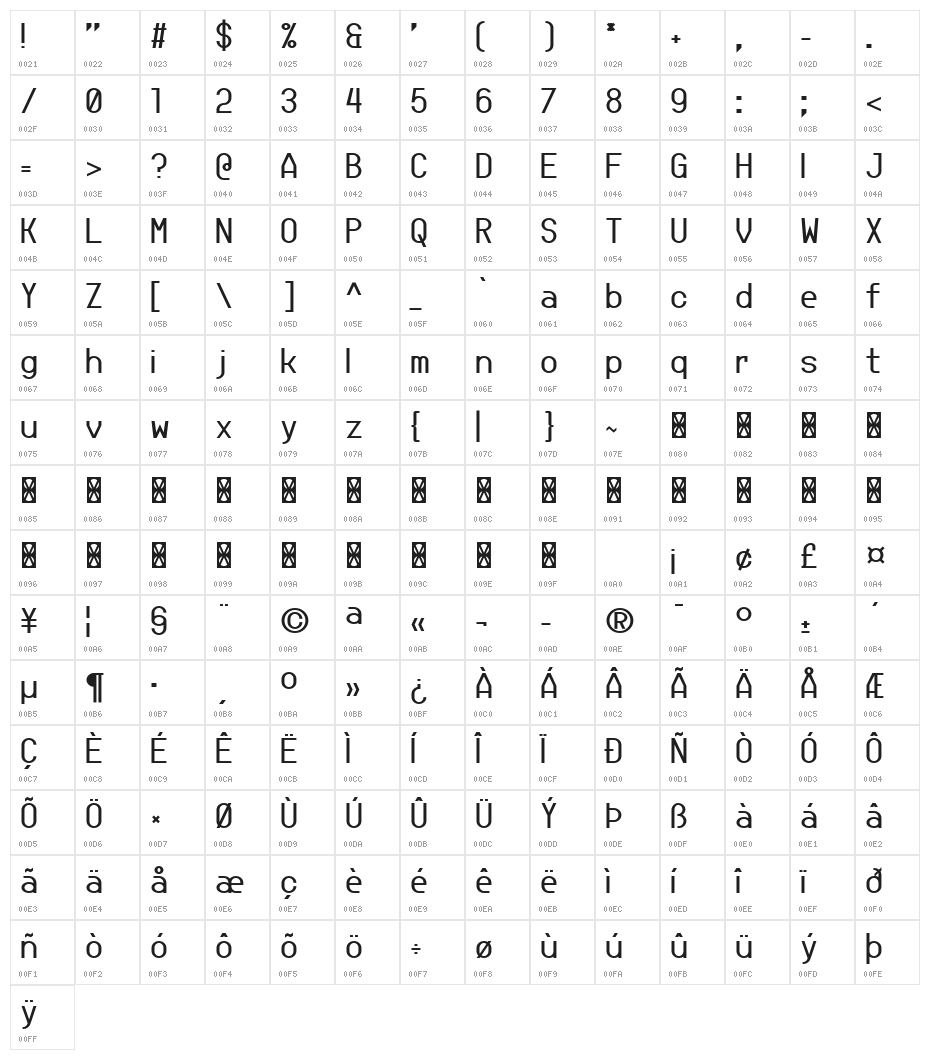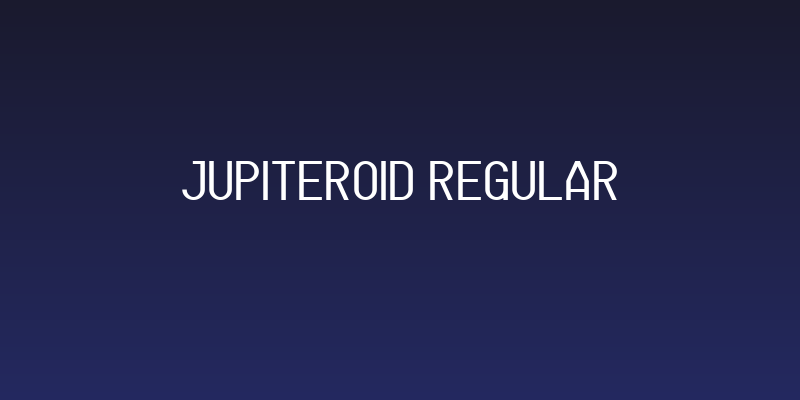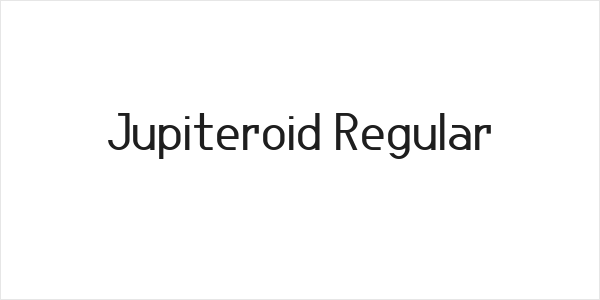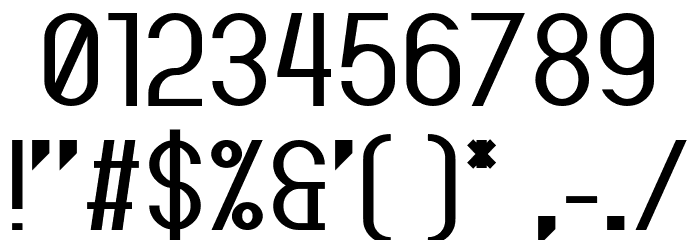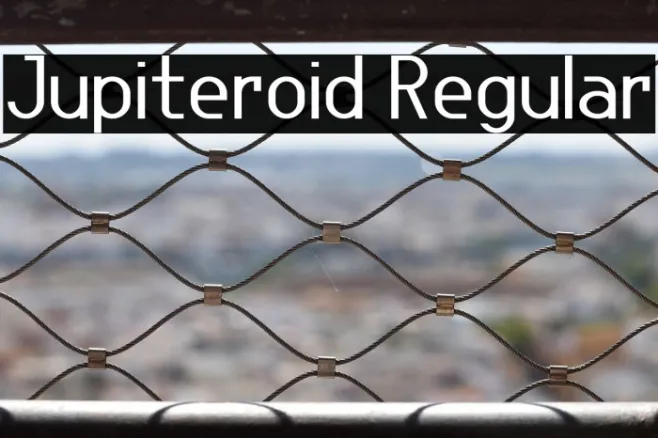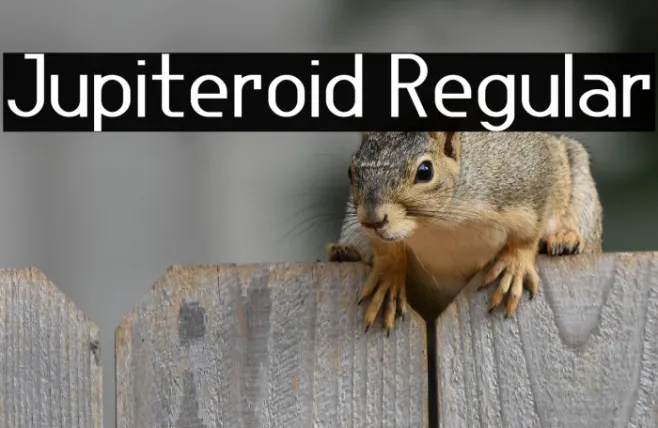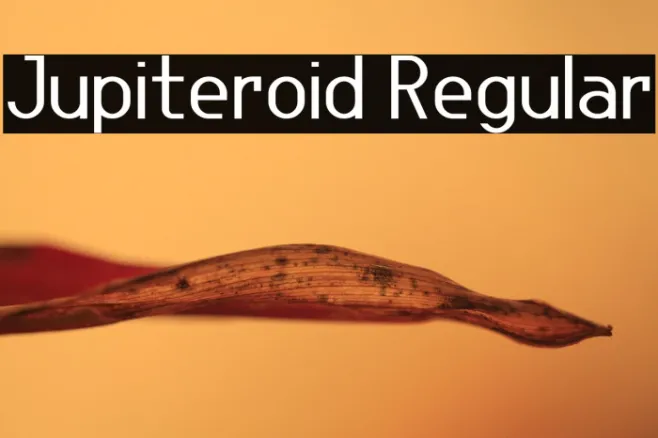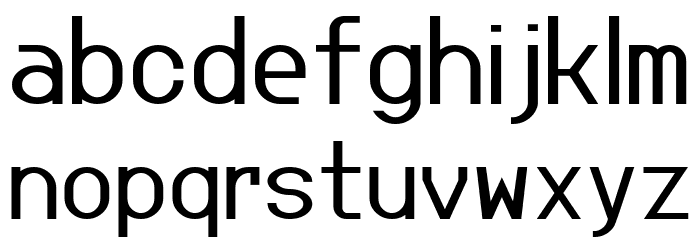
Jupiteroid Regular Font
Jupiteroid Regular Description
This font exhibits a modern and clean sans-serif style with a geometric influence. The characters are well-balanced, featuring consistent stroke widths that provide a uniform appearance. The uppercase letters are bold and assertive, while the lowercase letters maintain a friendly and approachable demeanor. The numerals are clear and easily distinguishable, making them suitable for various applications. Special characters are designed with simplicity and clarity in mind, ensuring they complement the overall aesthetic. This font is versatile, offering a professional look that can be adapted to numerous design contexts.